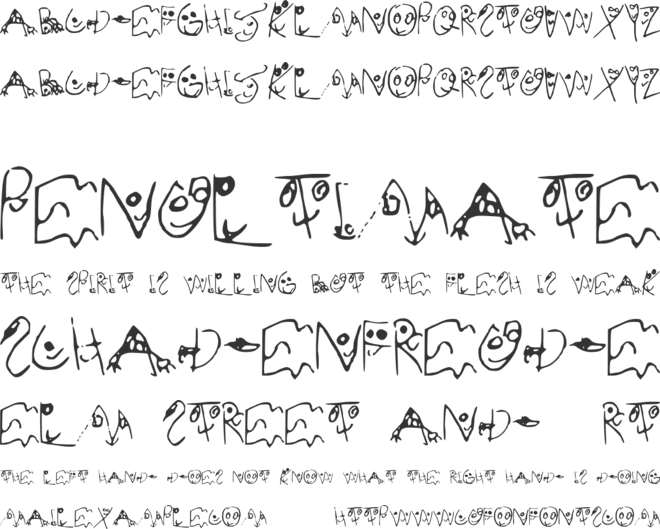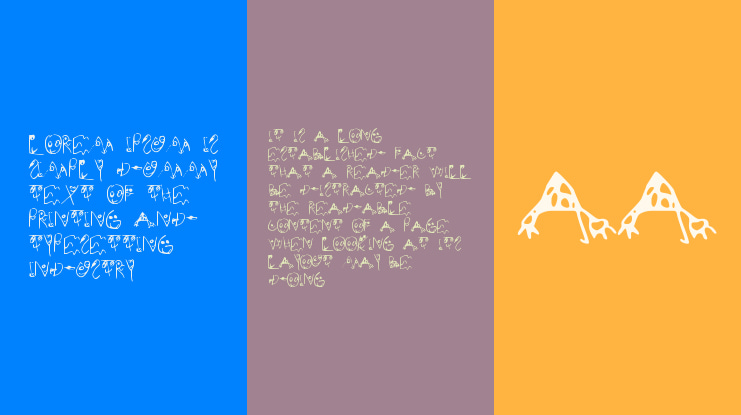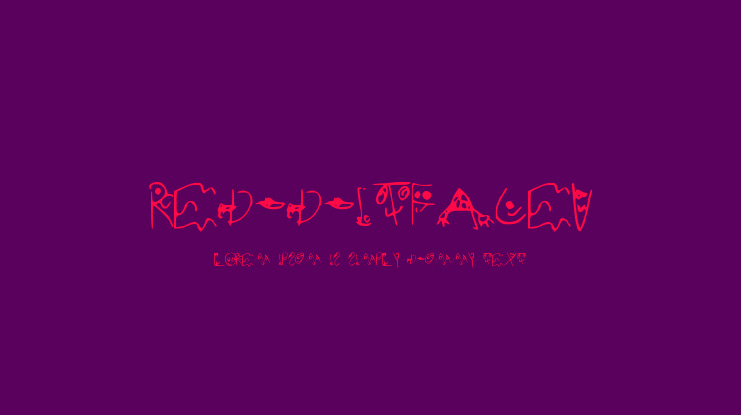
RedditFacev2 Font
Redditor's son was asked by his kindergarten teacher to write the alphabet.
Hopefully he'll get some use out of this!
Please note, the file does not contain lower case or punctuation. Just caps.